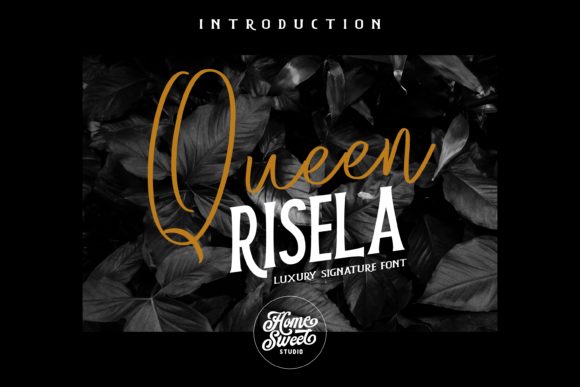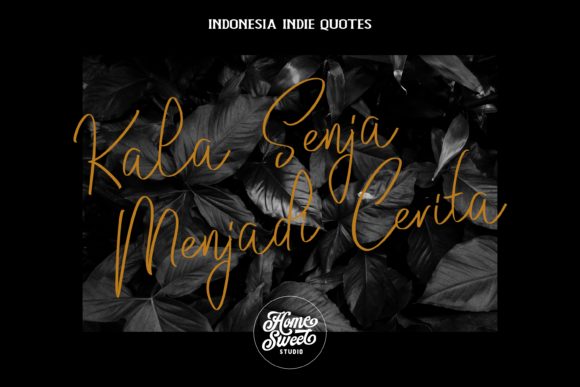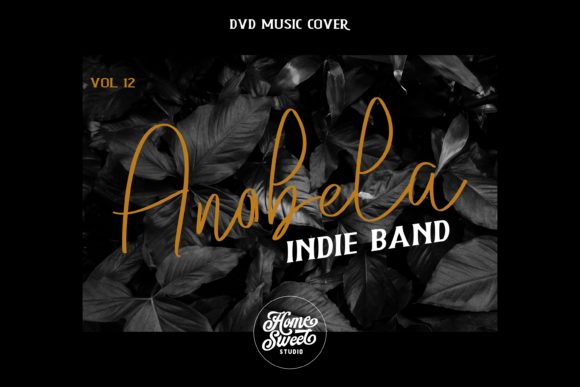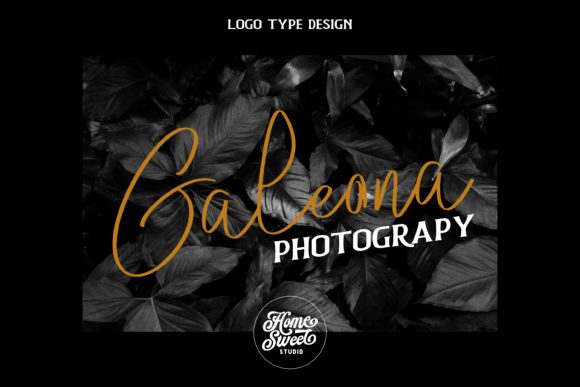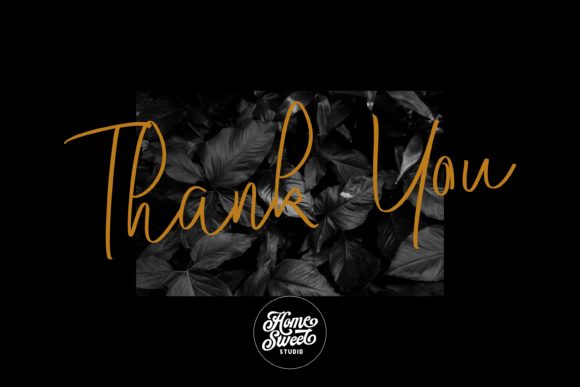
HomeScript FontsQueen Risela Font Script Fonts Queen Risela Font FacebookXPinterestWhatsApp Queen Risela Font Poster 2 Queen Risela Font Poster 3 Queen Risela Font Poster 4 Queen Risela Font Poster 5 About Queen Risela Font Queen Risela is an amazing handwritten font with a bold feel. Get inspired by its timeless charm! DOWNLOAD NOW People also explored Shamrock Font Starmoon Font Farmer Market Font Escucha Consuela Duo Font Monthly Font Rozalyn Organika Sakartty Font Winter Cool Font 303 0 TagsQueen Risela Font Previous articleAggitha FontNext articleSepagetty Font LEAVE A REPLY Cancel reply Comment: Please enter your comment! Name:* Please enter your name here Email:* You have entered an incorrect email address! Please enter your email address here Website: Save my name, email, and website in this browser for the next time I comment. Personal Use Free Eigha Personal Use Free Read more about this font Hommy You Personal Use Free Read more about this font Engine Personal Use Free Read more about this font Hagia Signal Personal Use Free Read more about this font BLOG Free Fonts Risk: Why Free Fonts Can Be Dangerous for Designers Free Fonts Risk: Why Free Fonts Can Be Dangerous for Designers Using free fonts is a common practice in web and graphic design. However, the... To increase your work productivity, choose the most readable fonts. Using Fonts in Digital Marketing: Tips to Strengthen Your Brand Identity Best Fonts for YouTube Videos: Make Your Thumbnails Stand Out